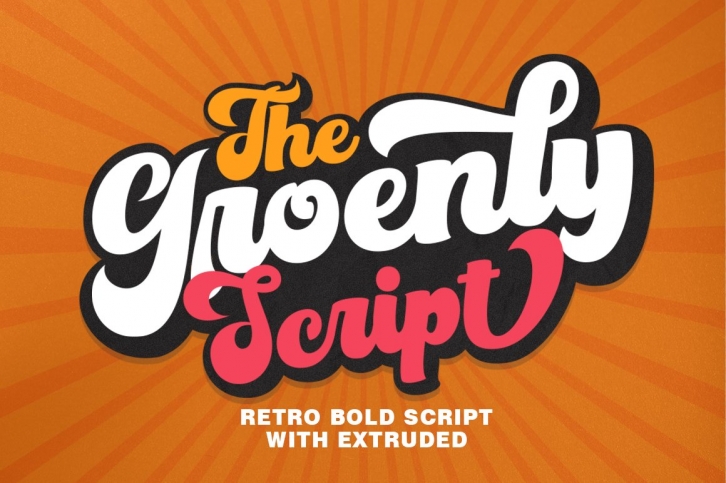
The Groenly Script Inspired by Retro style and combination with Hand Lettering style. General Script has many alternative swash & ligatures characters and has opentype features such as alternative styles, set styles, binders and swash so you can mix and match as you wish.
The Groenly Script comes with open type features such as alternative styles, set styles & ligatures for logos, posters, badges, book covers, t-shirt designs, handwritten quotes, product packaging, headings, posters, merchandise, social media & greeting cards.